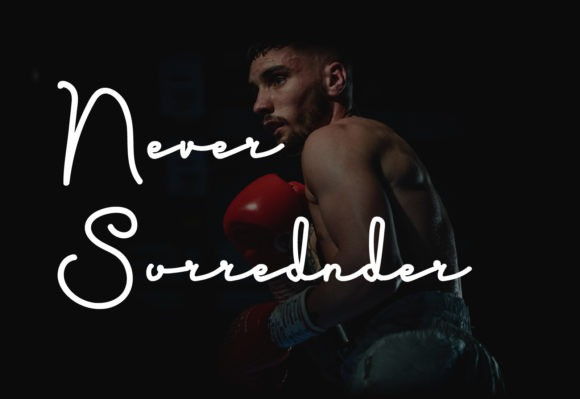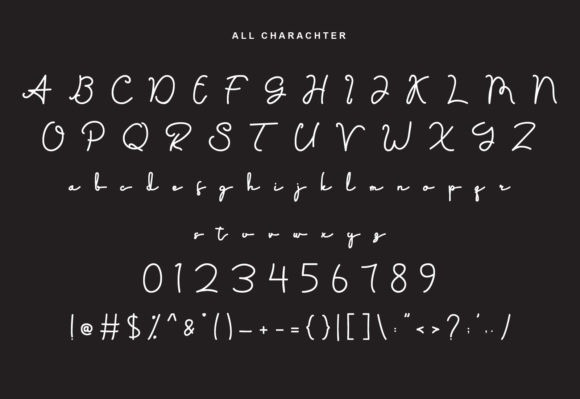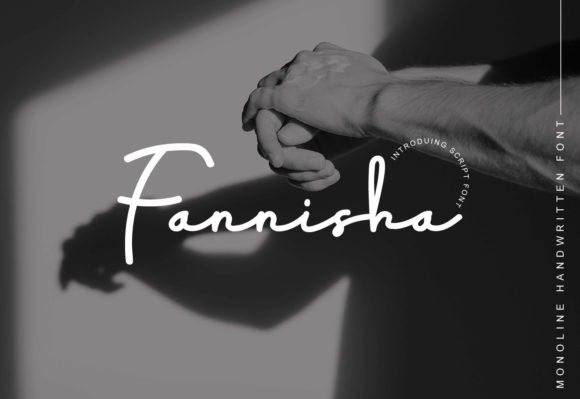
Fannisha Script Font
Fannisha is a cursive and beautiful handwritten font. It looks beautiful on a variety of designs requiring a personalized style, such as wedding invitations, thank you cards, weddings, greeting cards, logos and so on.